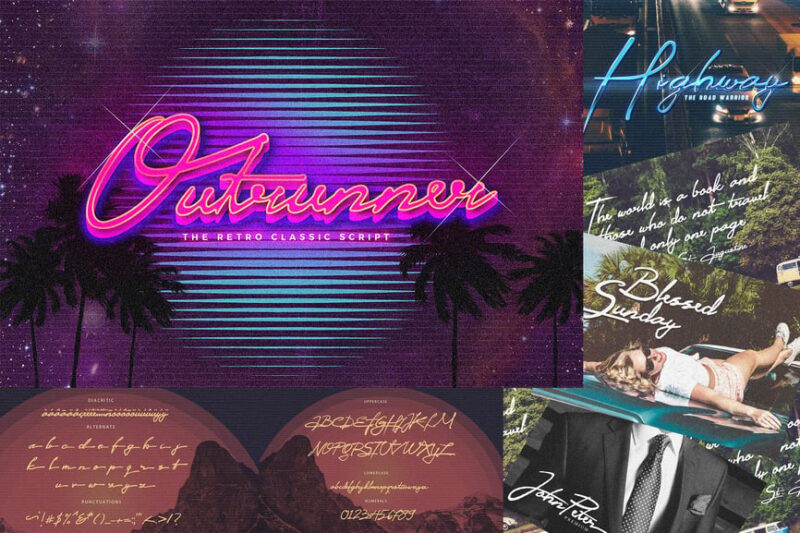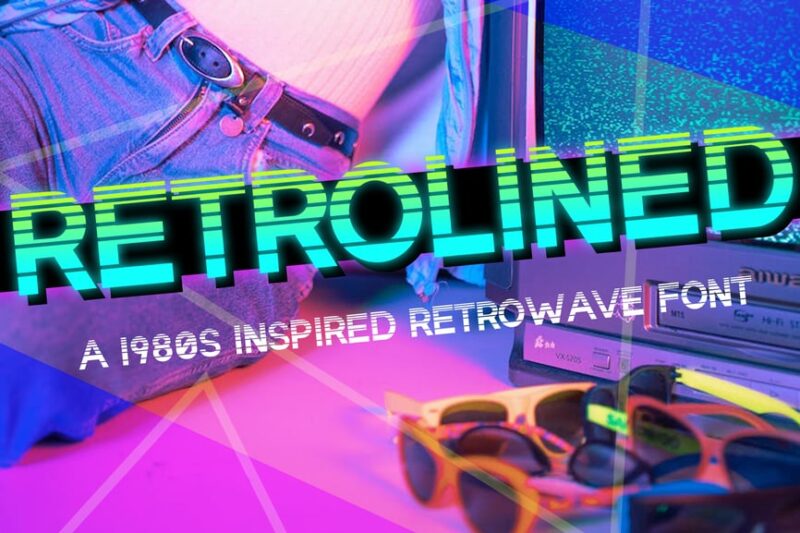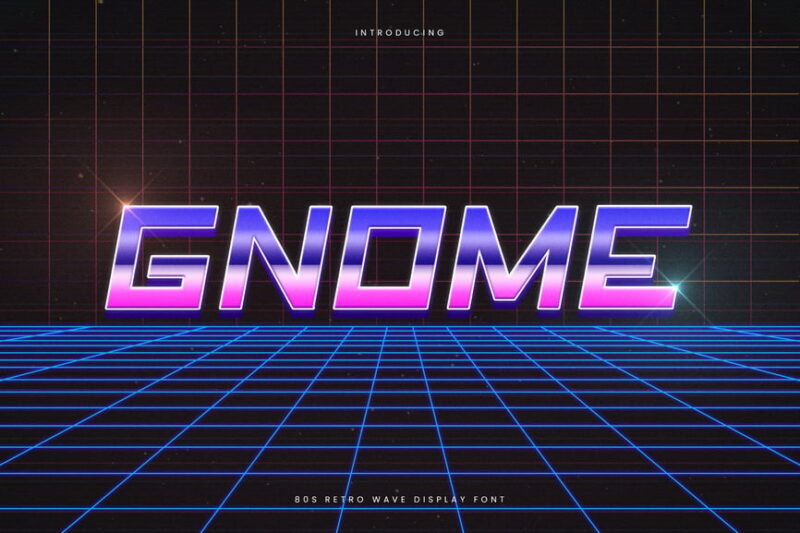
Neon glitches dance across pixelated screens. Synthesizers whisper nostalgic melodies. Pastel pinks bleed into electric blues. Welcome to the typographic universe of vaporwave – where fonts aren’t just letters, they’re time machines transporting us back to a digitized, retro-futuristic dream.
What Makes a Font Truly Vaporwave?
Vaporwave fonts are more than just typefaces – they’re cultural artifacts that capture an entire aesthetic movement. Born from the digital subculture that reimagines 80s and 90s technology, these fonts embody a strange, beautiful intersection of nostalgia and digital abstraction.
The most iconic vaporwave fonts share some killer characteristics:
- Glitchy, distorted letterforms that seem to melt and warp
- Pastel color palettes reminiscent of old computer interfaces
- Retro-futuristic shapes that blend analog and digital aesthetics
- Intentional imperfections that celebrate technological awkwardness
- References to early computer graphics and low-resolution displays
Top Vaporwave Fonts to Transform Your Design
Retrofuturism OTF Vapor Wave Font
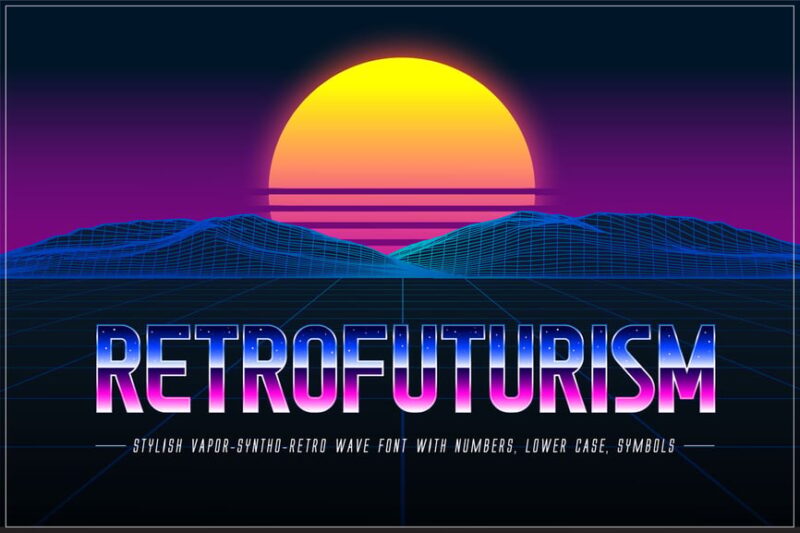
This authentic vaporwave font captures the essence of 80s and 90s retrofuturism with its distinctive decorative styling. Perfect for designers seeking to create nostalgic synthwave aesthetics, this typeface embodies the dreamy, neon-soaked visual language that defines modern vaporwave design. Its futuristic yet retro characteristics make it ideal for album covers, posters, and digital art projects.
Heatwave Typeface
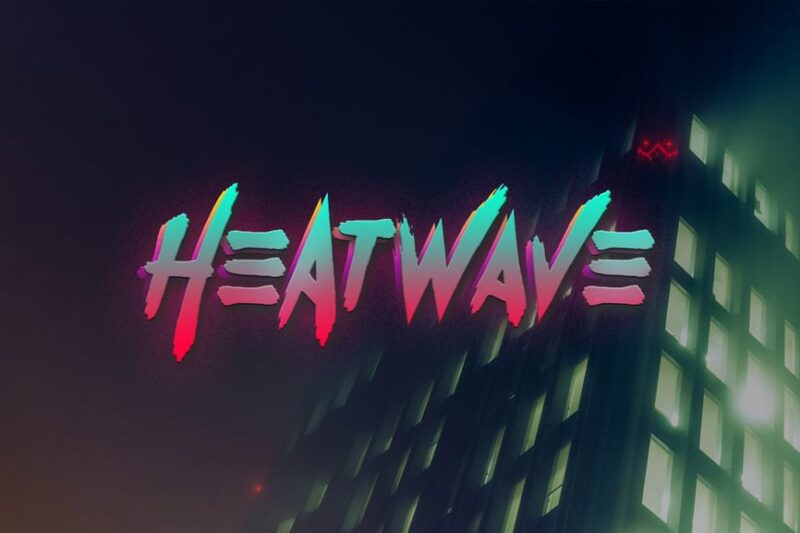
Heatwave delivers the quintessential 80s vaporwave aesthetic through its flowing script and handwritten style. This font perfectly complements synthwave and retrowave design projects with its warm, nostalgic character that evokes summer nights and neon-lit cityscapes. Designers working on vaporwave-inspired graphics will find this typeface essential for creating authentic period atmosphere.
Horsemen – Horror Retrowave Font
Combining horror elements with classic retrowave styling, Horsemen offers a dark twist on traditional vaporwave fonts. This versatile typeface includes script, sans-serif, and decorative variations with grunge influences that perfect for 90s-inspired design work. Its edgy aesthetic makes it ideal for designers creating atmospheric synthwave graphics with a more sinister, cyberpunk edge.
Hyperwave
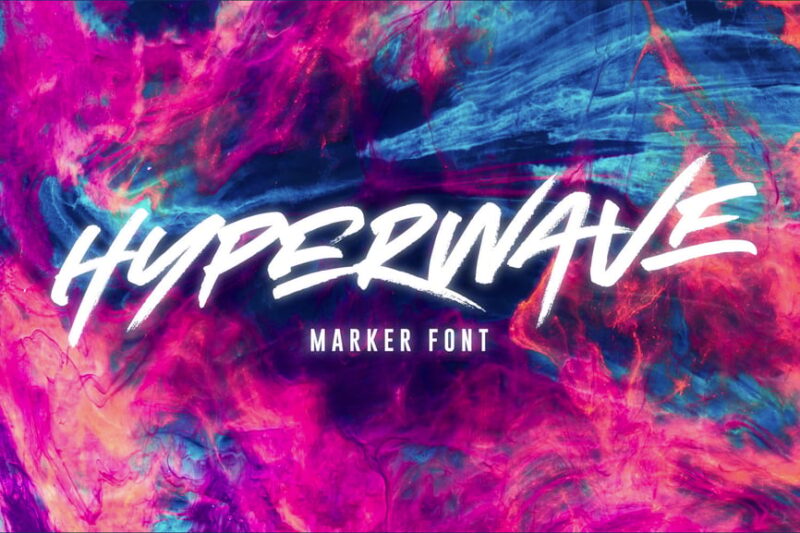
Hyperwave embodies the cyber-neon aesthetic that defines modern vaporwave typography with its sleek script and handwritten styling. This futuristic font captures the electric energy of digital landscapes and virtual environments, making it perfect for tech-inspired designs. Graphic designers working on synthwave projects will appreciate its clean lines and contemporary edge that bridges retro and modern aesthetics.
Overdrive Avenue – 2 in 1 Retro Wave Font
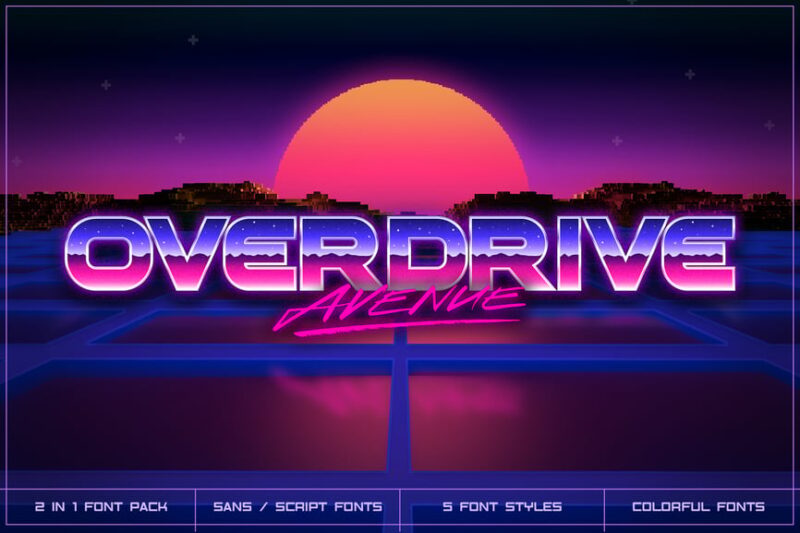
This dual-style vaporwave font package offers both script and sans-serif options, providing versatility for comprehensive retrowave design projects. Overdrive Avenue captures the spirit of 80s and 90s aesthetics with its decorative flair and nostalgic character. The two-in-one format makes it an excellent value for designers creating cohesive synthwave branding or extensive vaporwave visual campaigns.
Videocassette – Retro Wave Font
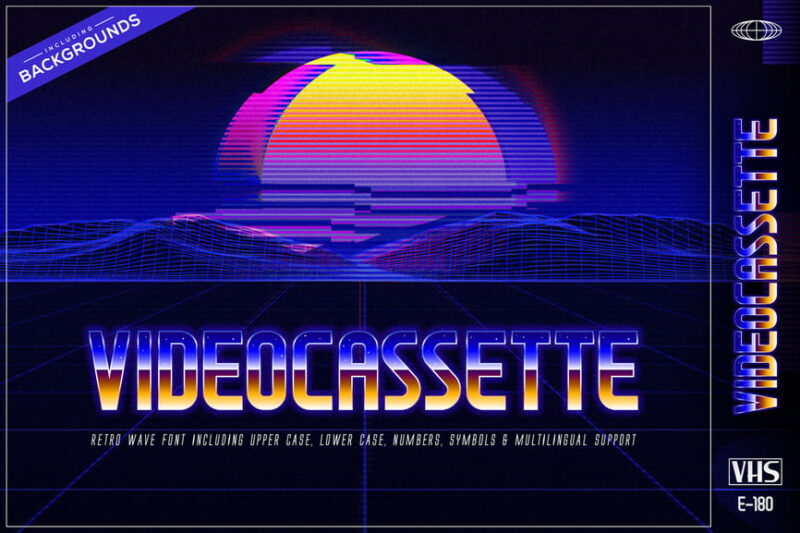
Videocassette perfectly captures the nostalgic essence of VHS-era aesthetics, making it a standout choice among vaporwave fonts. This decorative sans-serif combines retro gaming influences with disco-era styling to create an authentic vintage digital experience. Designers seeking to evoke 80s nostalgia and synthwave culture will find this typeface essential for creating period-appropriate retrowave graphics.
Lagoon Beach – 2 in 1 Font Pack
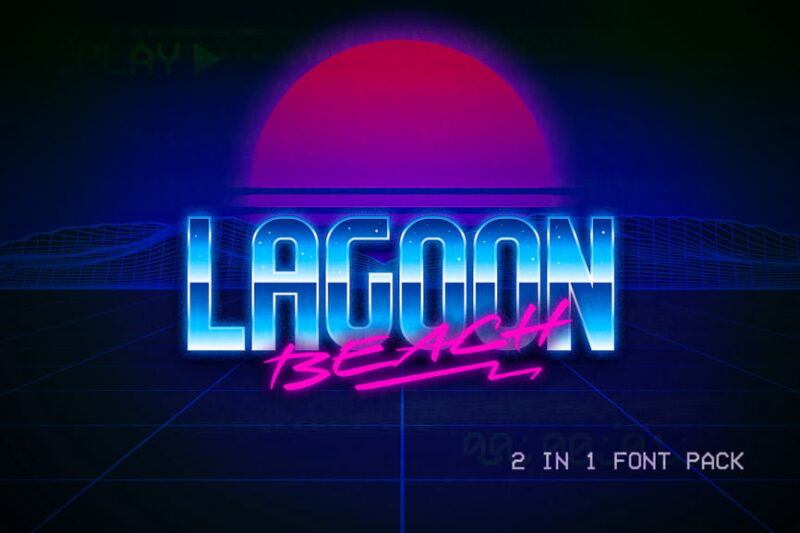
Lagoon Beach brings a tropical twist to classic vaporwave fonts with its comprehensive serif, sans-serif, and script options. This 1980s-inspired font pack combines beach aesthetics with synthwave styling, perfect for summer-themed retrowave projects. The versatile collection offers designers multiple typographic options for creating cohesive vaporwave branding with a relaxed, coastal atmosphere.
Torchzilla – Retro Script
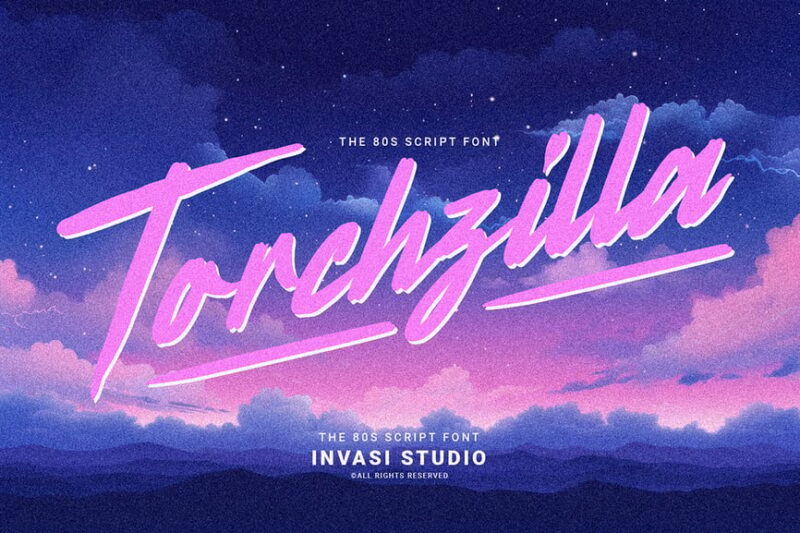
Torchzilla delivers bold retro script styling with intense neon-inspired character perfect for synthwave design applications. This handwritten-style font captures the electric energy of 80s nightlife and arcade culture, making it ideal for vaporwave graphics and retrowave branding. Its dynamic script form adds movement and energy to designs while maintaining the authentic aesthetic that defines quality vaporwave typography.
- Introduce intentional “errors” and glitches
- Reference early GUI design elements
- Balance nostalgia with modern design principles
The Future of Vaporwave Typography
As digital aesthetics continue to evolve, vaporwave fonts remain a powerful testament to our complex relationship with technology. They remind us that design is never just about letters – it’s about storytelling, emotion, and cultural memory.
So go ahead. Glitch your typography. Distort your dreams. Let your fonts tell a story that transcends time and pixels.